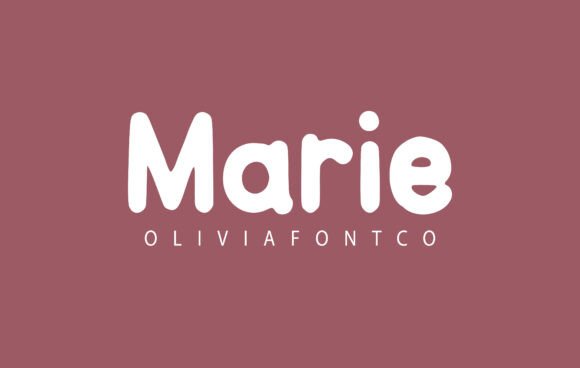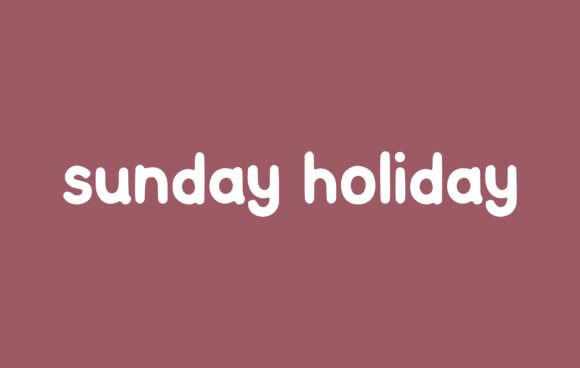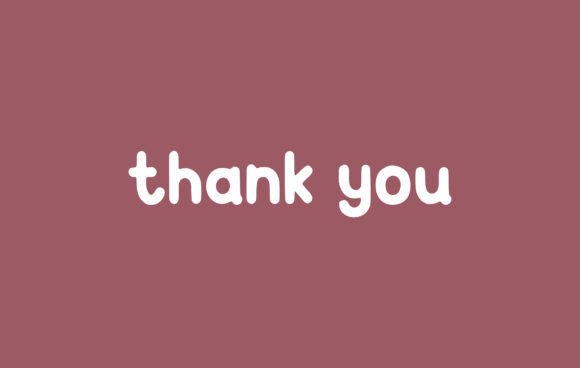
Marie Font: A Cute Handwritten Font for Social Media & Cricut
About the Marie Font
Unleash your creativity with Marie Font, a versatile font perfect for a wide range of applications. Marie font is an authentic handwritten font with a romantic touch. Expertly designed to be a true favorite, this font has the potential to take your creative ideas to the highest level
Marie’s romantic touch makes it ideal for projects requiring a delicate yet expressive feel. It excels in headlines, short paragraphs, and branding applications where a handwritten aesthetic adds personality, such as wedding invitations, stationery, or logos for boutiques and cafes. However, its handwritten nature makes it less suitable for extended body text or user interfaces demanding high legibility.
Pairing Marie with a clean sans-serif like Lato or a classic serif like Garamond provides a balanced contrast. For a more playful feel, consider pairing it with a script font like Great Vibes, but use sparingly to avoid overwhelming the design. The overall personality of Marie is best described as romantic, elegant, and slightly whimsical.
This font’s charm works well for brands focused on femininity, artistry, or handcrafted goods. Avoid using it for projects requiring a modern, minimalist, or corporate feel.